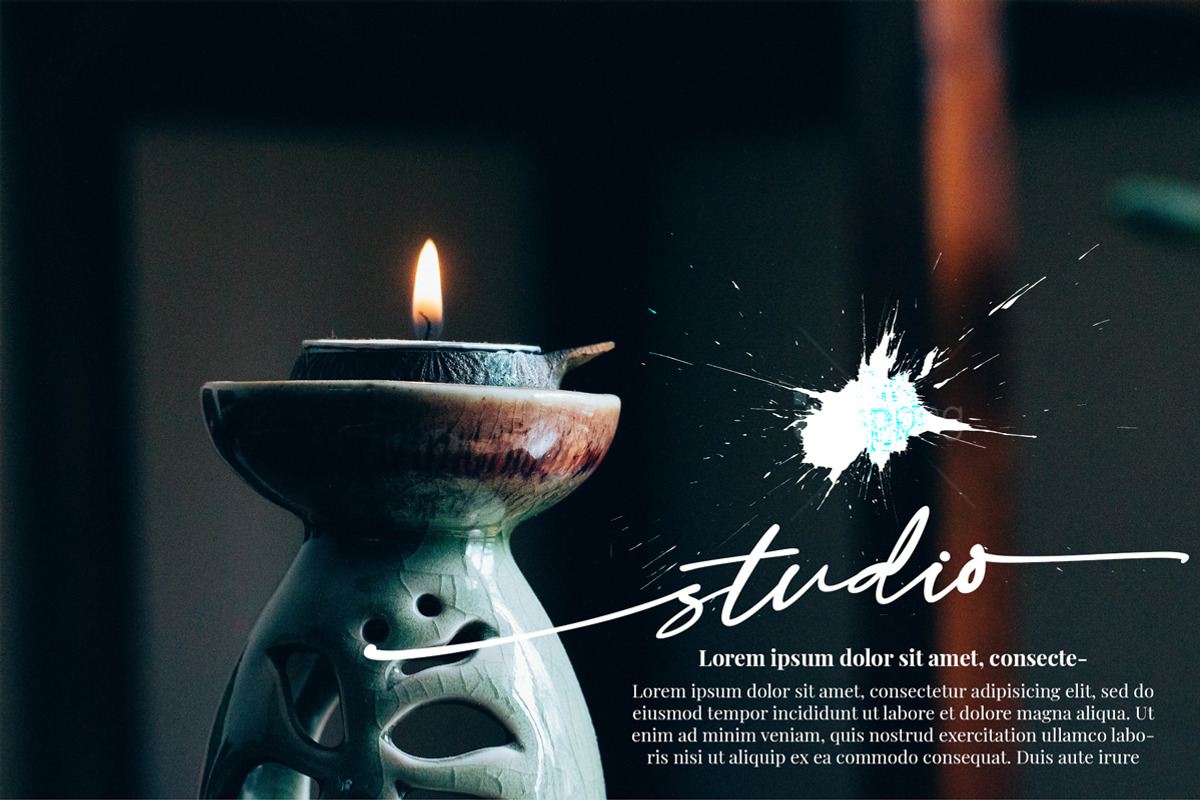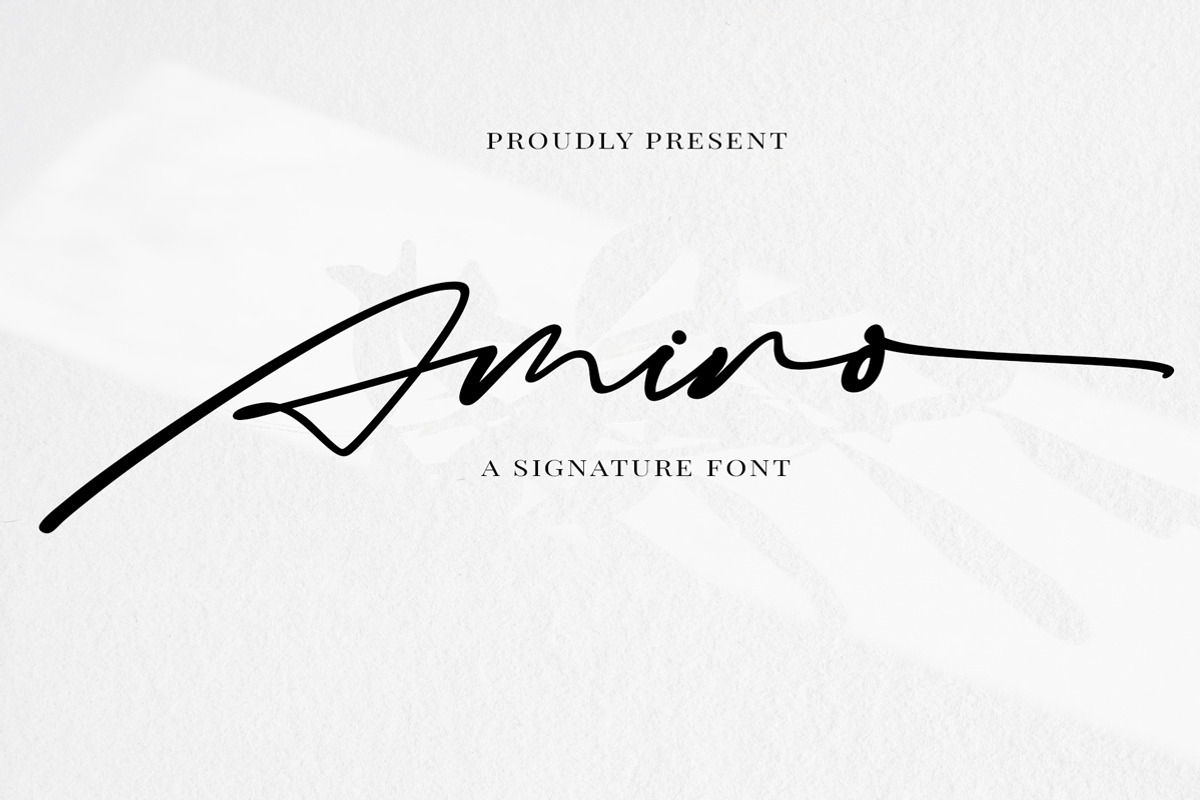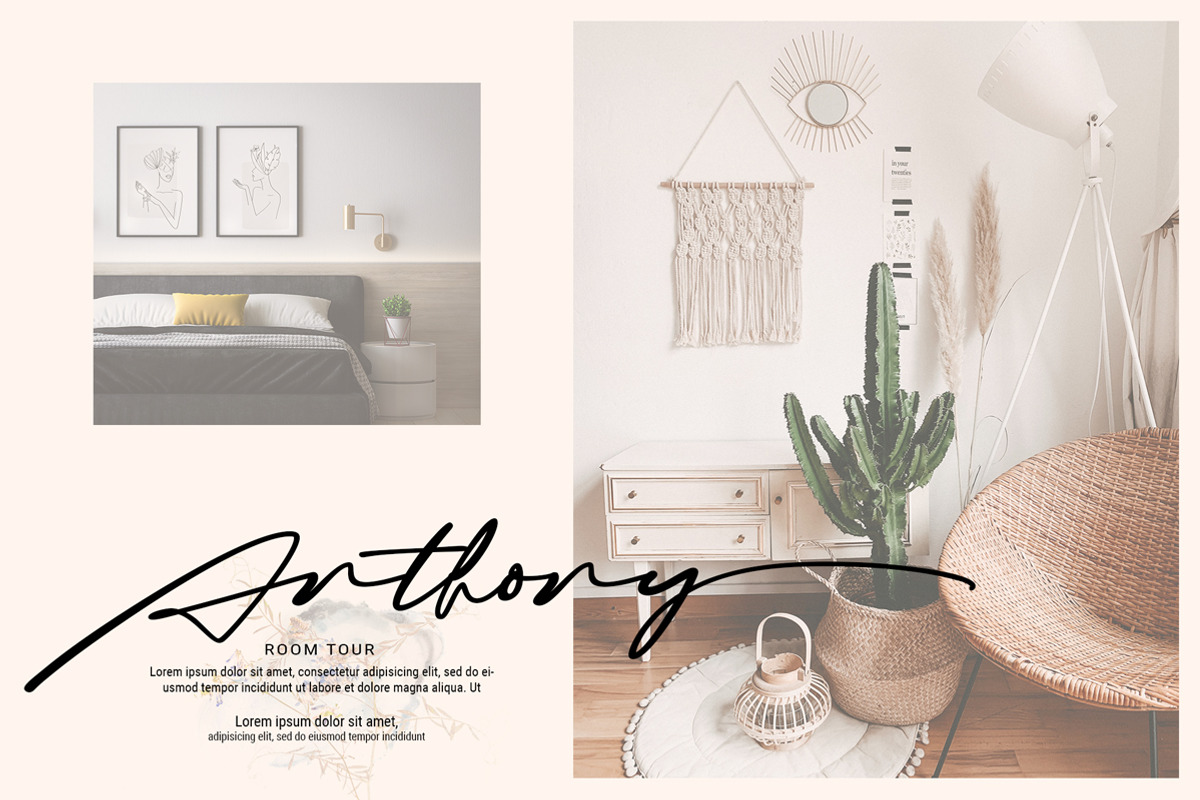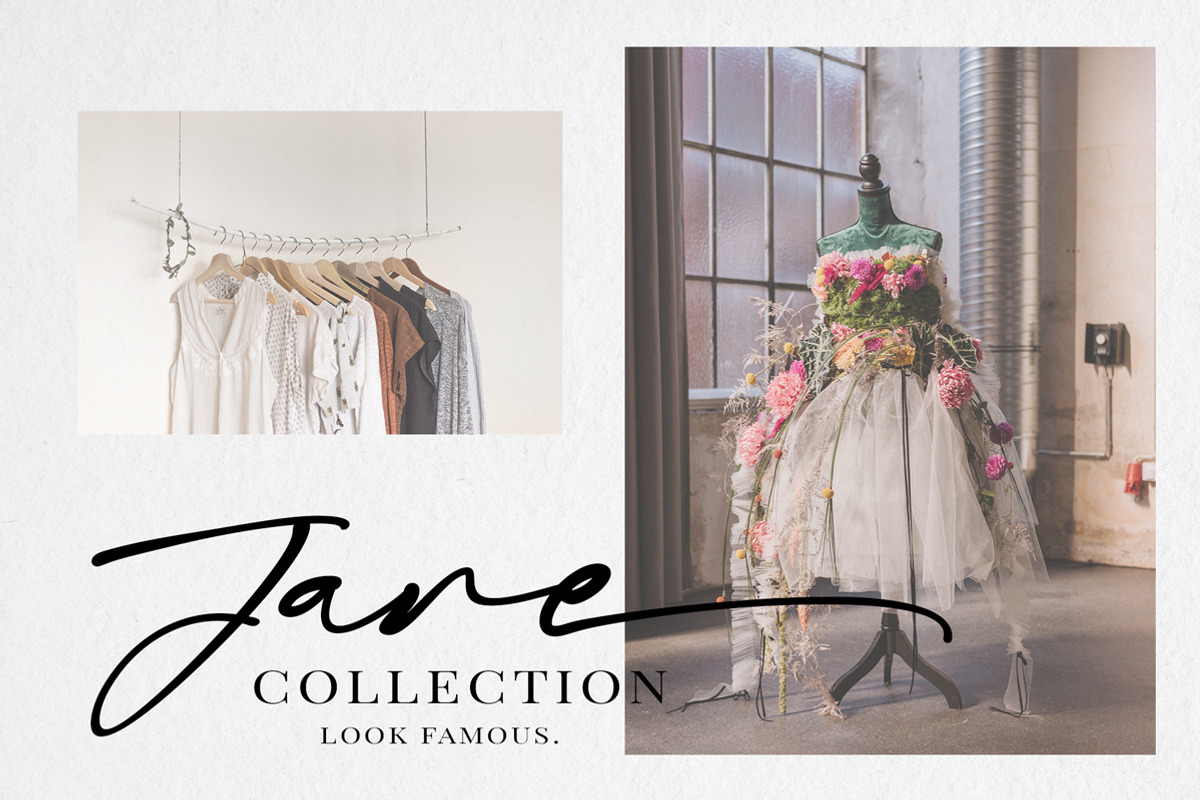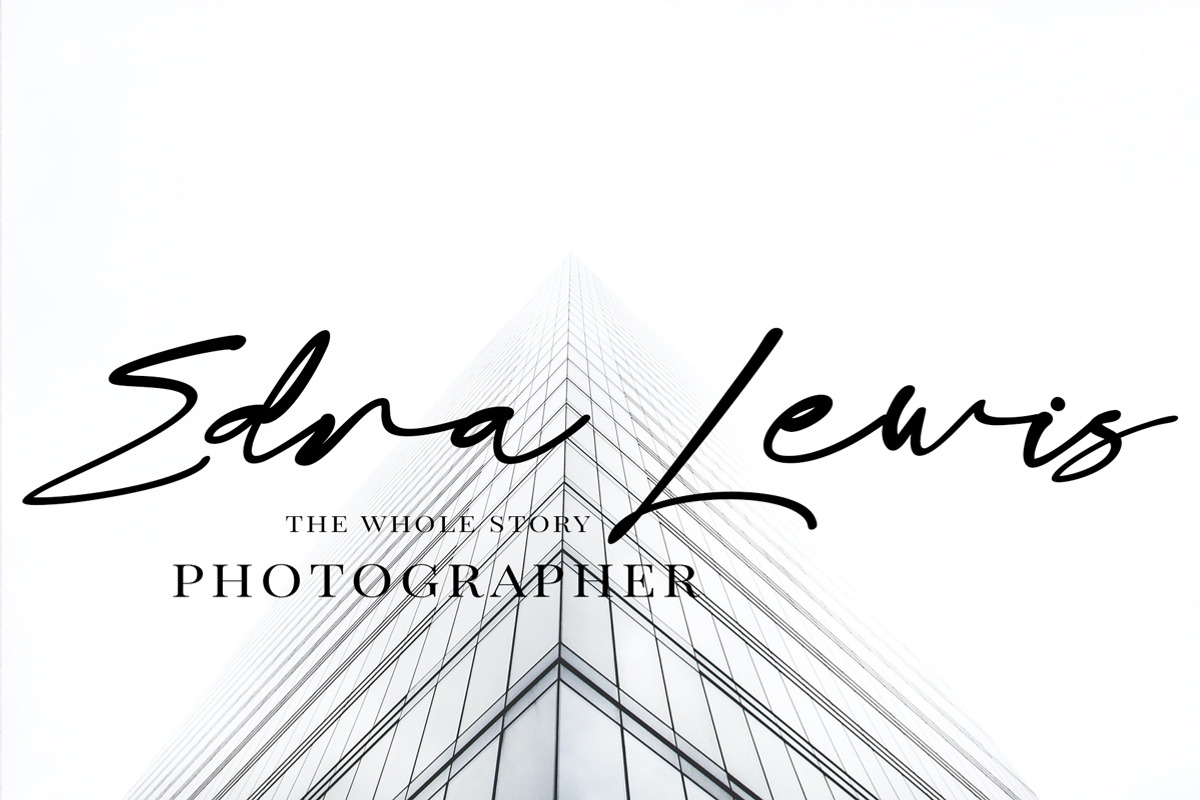
Amino - signature script
Amino is a stylish script font with a natural and clean flow. It looks amazing on thank you cards, quotes, wedding invitations, greeting cards, business cards, and more. It is an excellent option for displays and logotype works.
This font is PUA encoded which means you can access all of the glyphs and swashes with ease!
This gorgeous font includes all lowercase and uppercase characters, numbers, punctuation, swashes, alternate ,an array of standard ligatures and a selection of international characters as well (please type the preview to see if I have what you need!)